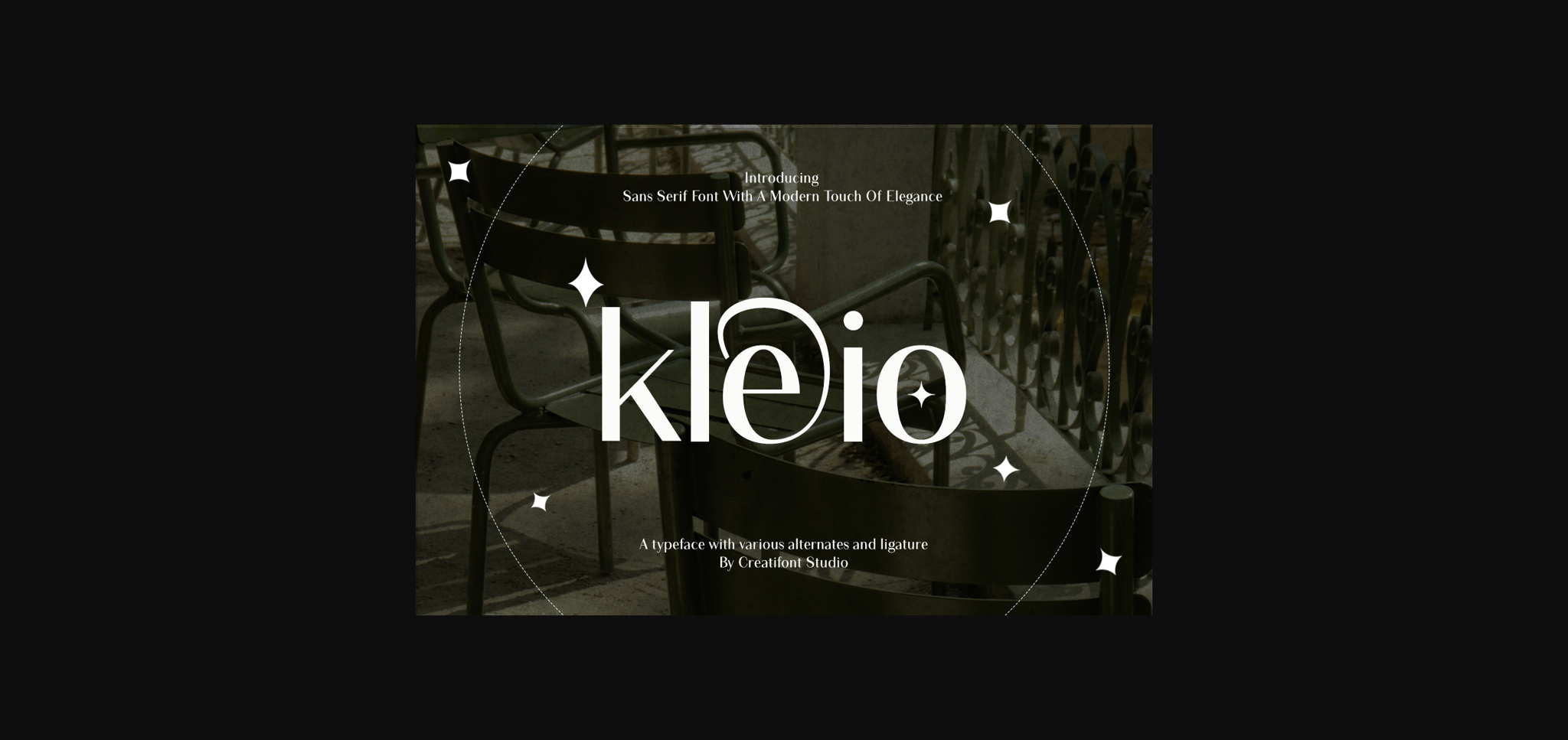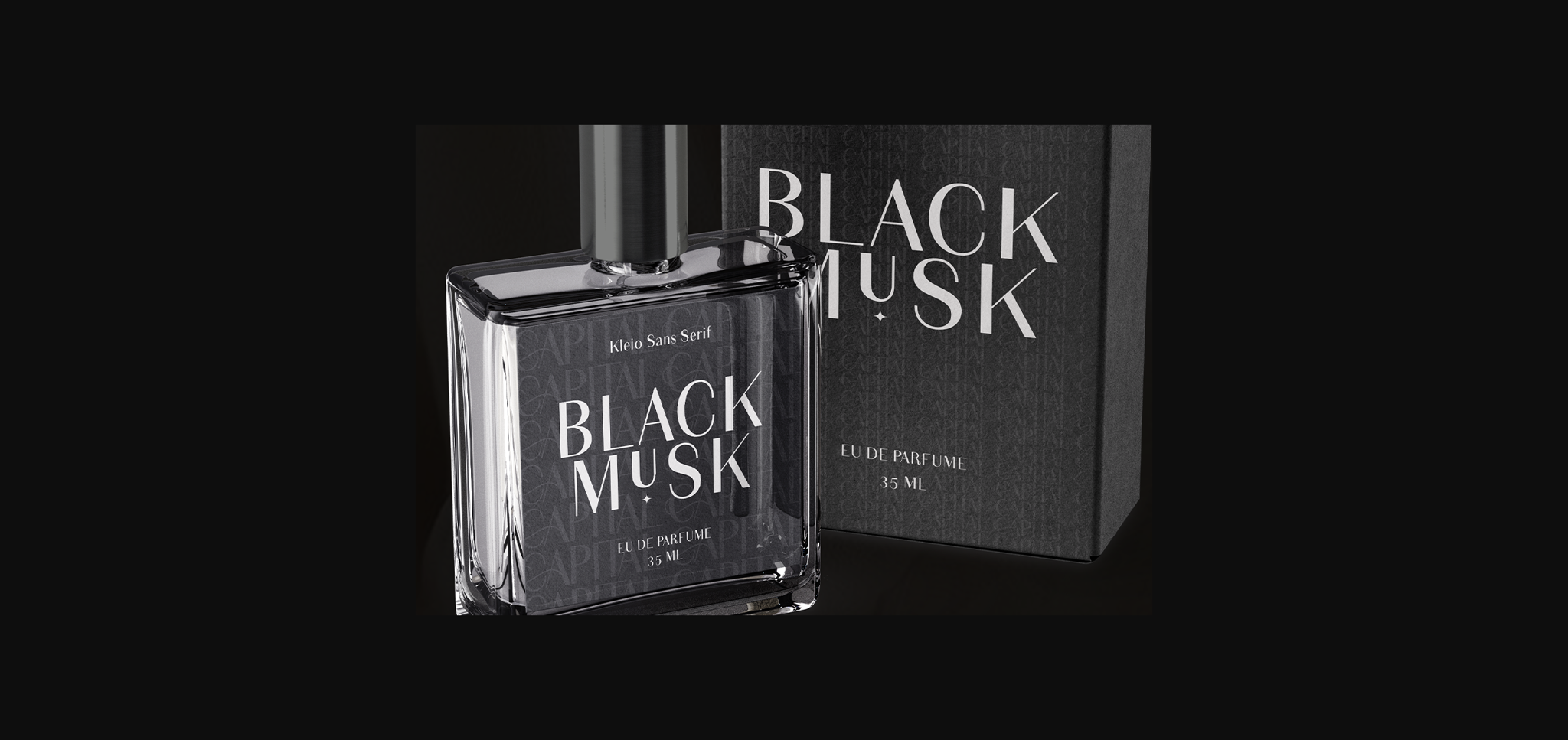
About Kleio Font
**Kleio** the elegant sans-serif font that elevates your designs to new heights. Tired of generic fonts that lack personality? Kleio breaks the mold, offering a striking balance between modern clean lines and a touch of graceful sophistication. Captivate your audience with text that exudes a timeless allure. Kleio transcends trends. Its clean, geometric structure ensures your designs stay fresh and contemporary, perfect for branding, websites, and editorial layouts.